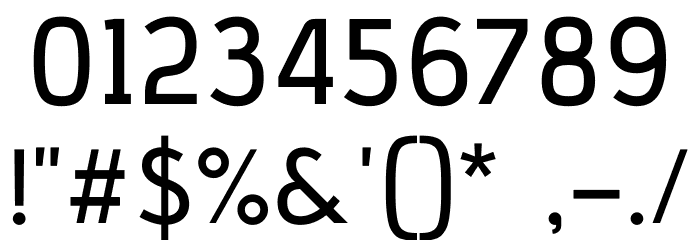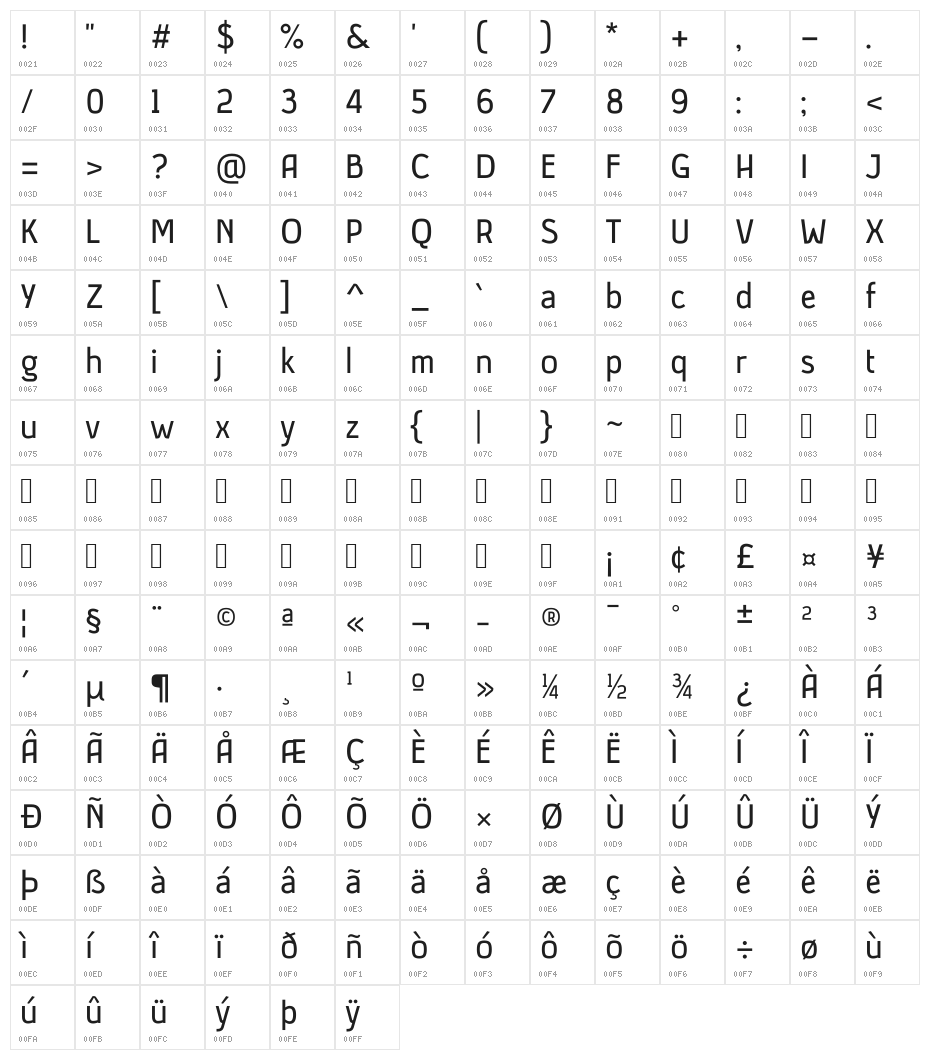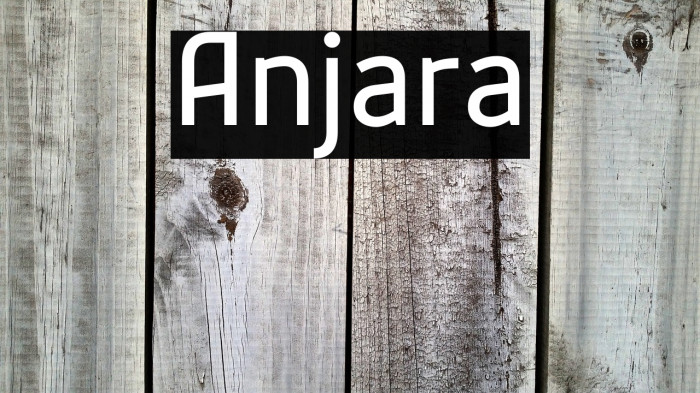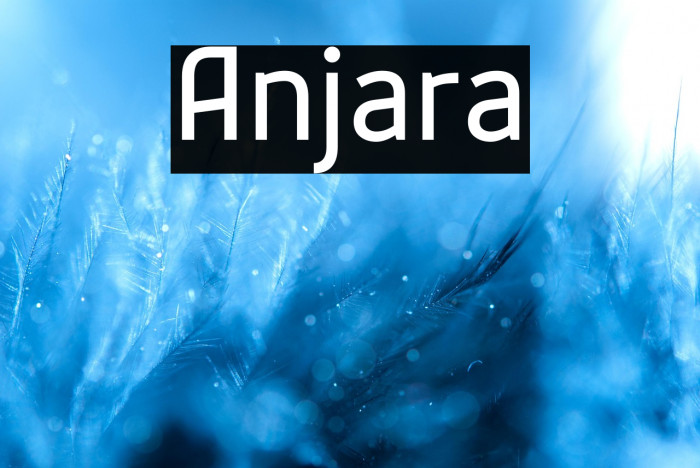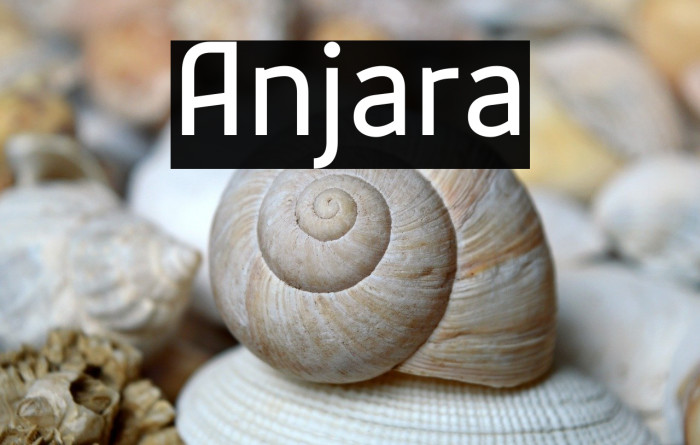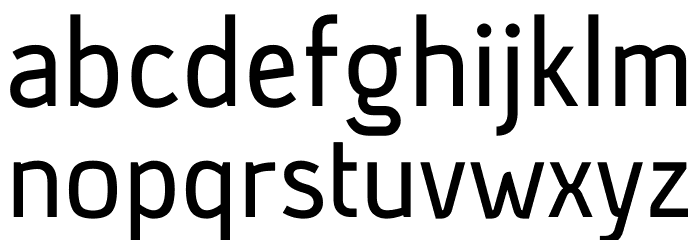
Anjara Font
Anjara Description
This font features a clean and modern sans-serif design with a geometric structure. The characters are well-balanced, offering a uniform appearance that enhances readability. The uppercase letters are slightly taller than the lowercase, providing a distinct hierarchy. The numerals are clear and consistent, making them suitable for various applications. Special characters are included, maintaining the font's cohesive style. The overall look is professional and versatile, suitable for both digital and print media.
| Proposed Projects | Ideal for branding, web design, corporate materials, and editorial content. |